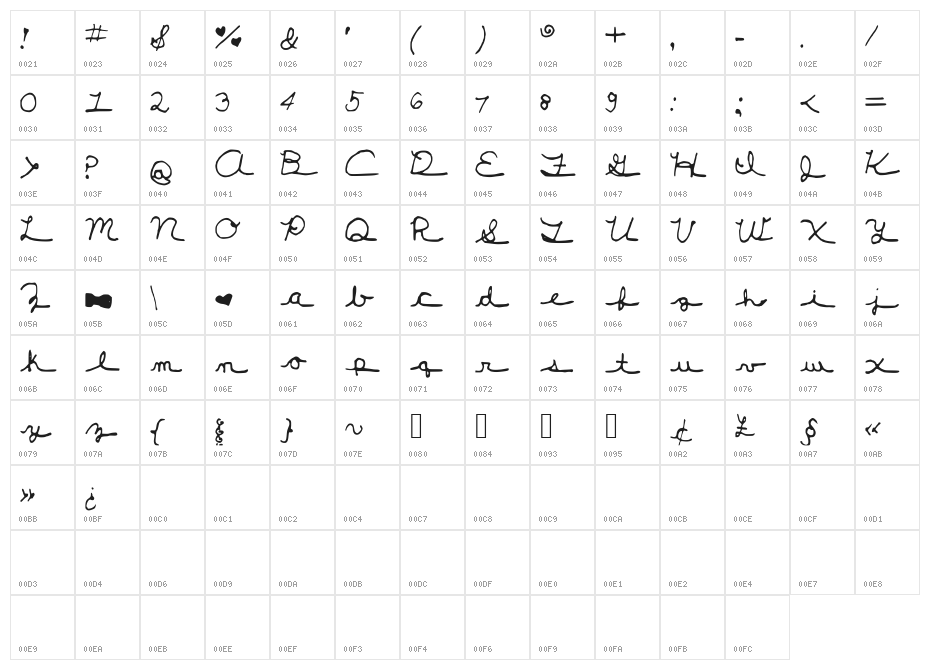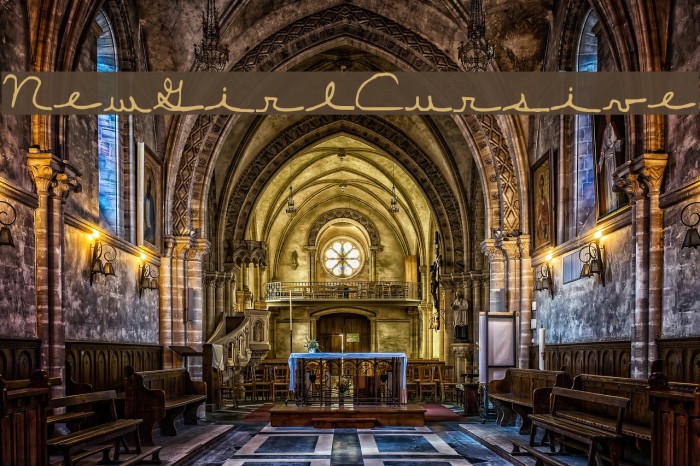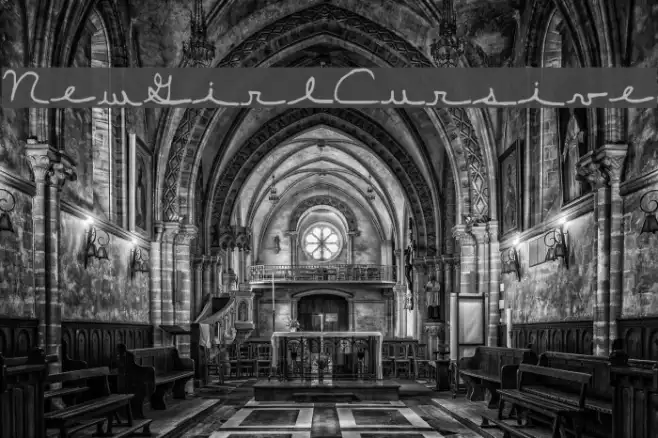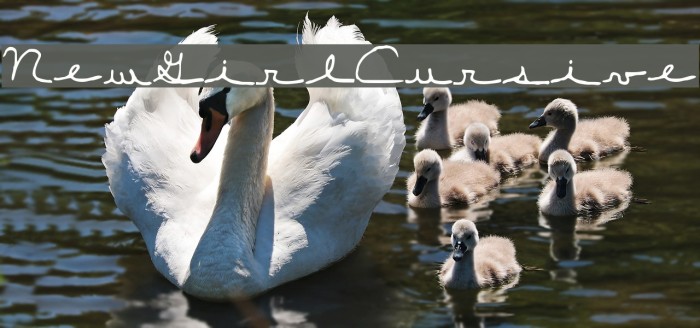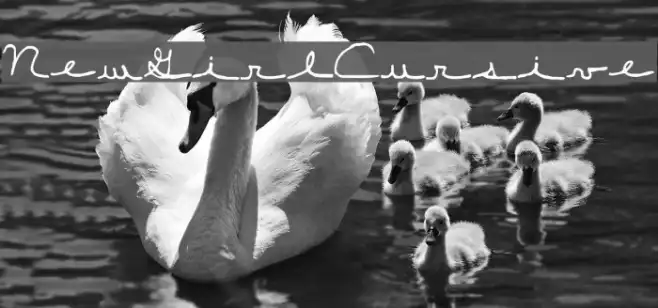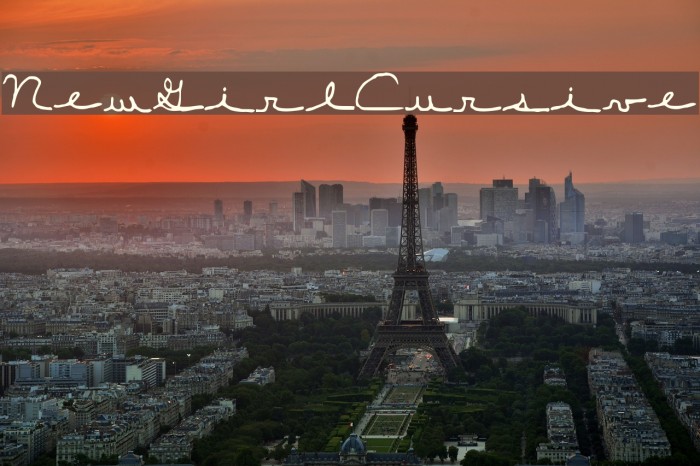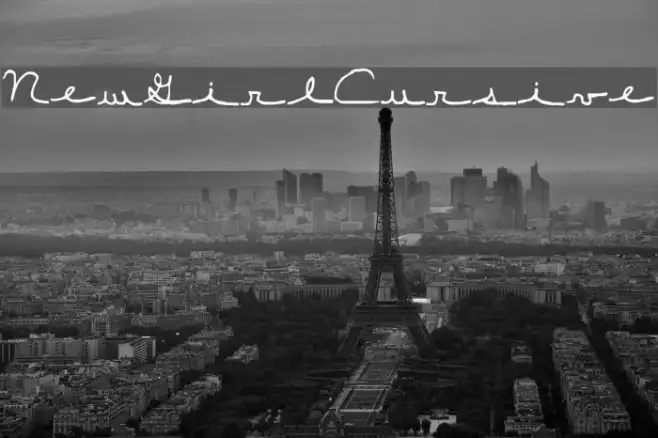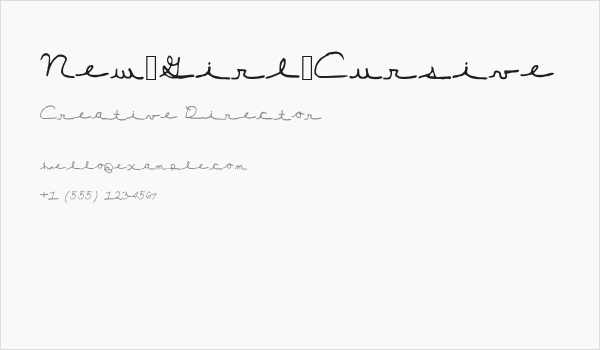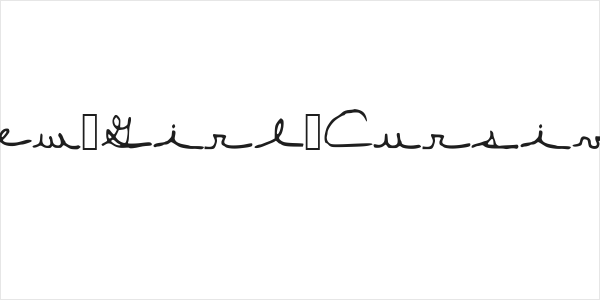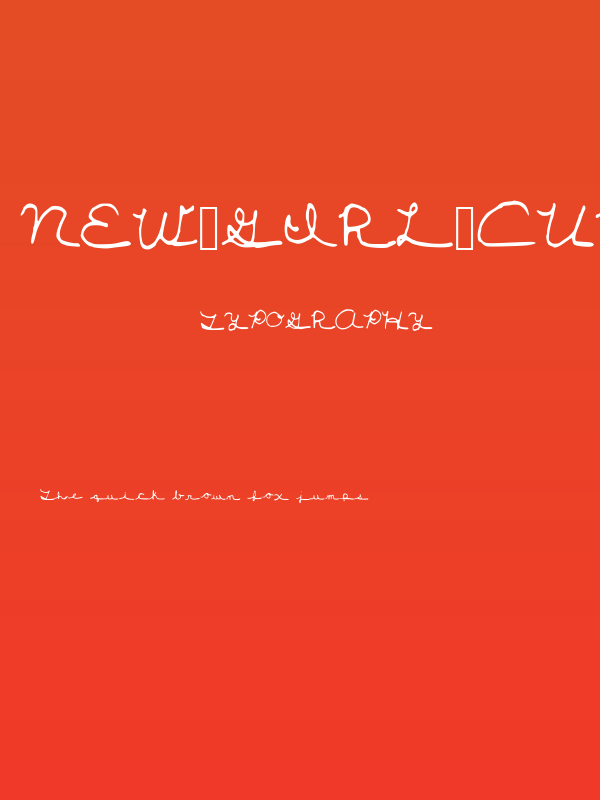
New_Girl_Cursive Font
New_Girl_Cursive Description
This font features a playful and whimsical cursive style, characterized by its fluid and continuous strokes that mimic natural handwriting. The uppercase letters have a distinctive looped design, while the lowercase letters maintain a consistent flow, enhancing readability. The numerals are bold and slightly exaggerated, adding a touch of flair. Special characters are creatively designed, incorporating heart shapes and unique symbols that add to the font's charm. Overall, this font exudes a casual and friendly vibe, making it suitable for informal and creative projects.